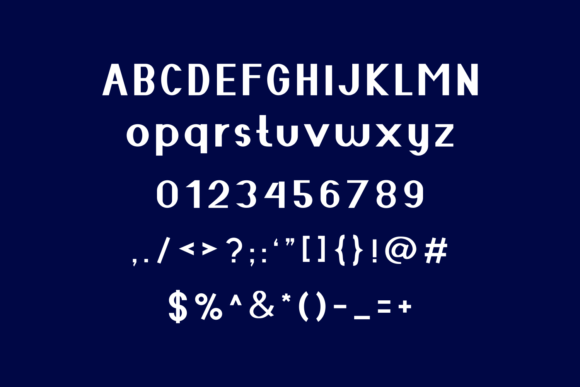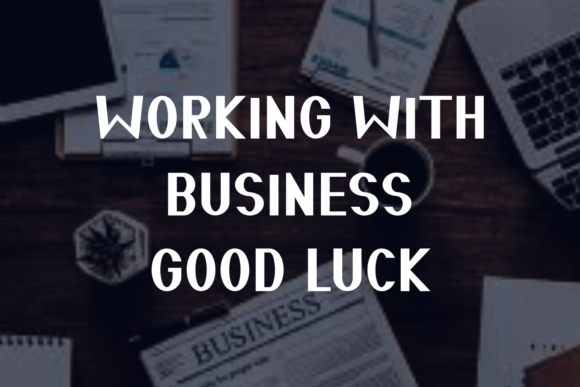
Introduction to Etanos Font
Etanos is a cool and modern sans serif font.
Etanos Font offers exceptional quality and versatility, making it a valuable addition to your design toolkit. Whether you’re creating for personal projects or commercial use, Etanos Font delivers professional results.